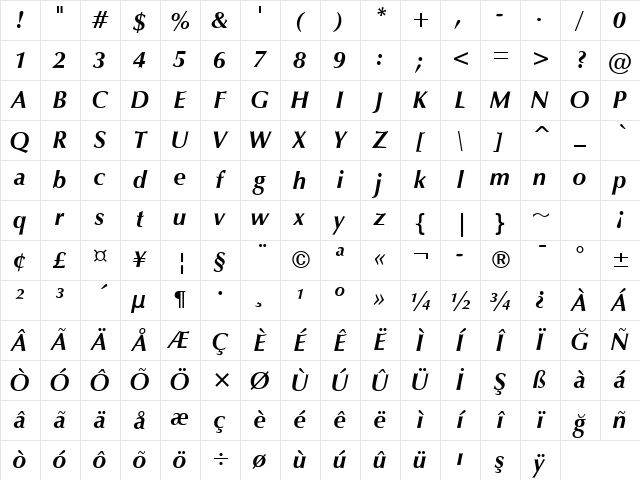
Zapf Humanist 601 Bold Italic BT Regular
Design Context for Zapf Humanist 601 Bold Italic BT
Zapf Humanist 601 Bold Italic BT is a composed and adaptable typeface that performs quietly and consistently across a wide range of design contexts. The slanted form adds forward momentum and visual energy. Its bold stroke weight gives it real presence on the page.
Pro Tip: Use Zapf Humanist 601 Bold Italic BT for emphasis, pull quotes, and subheadings where its slanted energy can add rhythm to the layout.